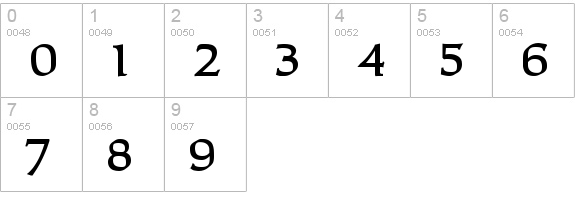
Carla Bold Font Details
Carla Bold is a strong, high-contrast variant in the Carla typeface family \xE2\x80\x94 well suited to headlines, attention-grabbing titles, and strong calls-to-action.
Carla Bold font is a striking and modern typeface that exudes confidence and elegance. Its bold and clean lines make it perfect for grabbing attention and making a statement in any design project. The thick strokes and sharp angles give Carla Bold a strong and impactful presence on the page. This font is versatile and can be used for a variety of purposes, from branding and logos to headlines and posters. Whether you're looking to create a bold and eye-catching design or add a touch of sophistication to your project, Carla Bold font has you covered. Best of all, Carla Bold font is completely free to download at FontsMarket.com. So go ahead and elevate your designs with this stylish and versatile typeface today!